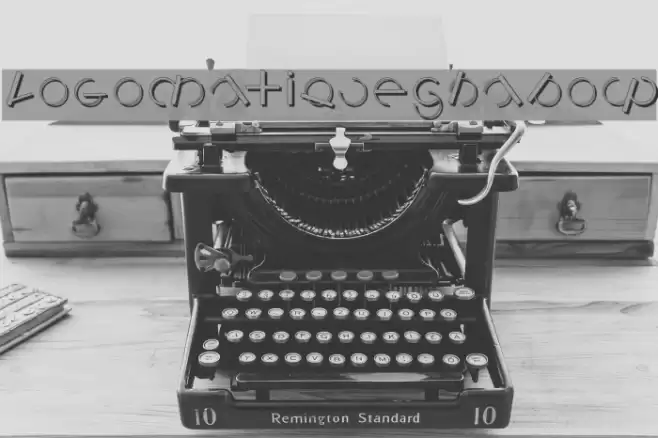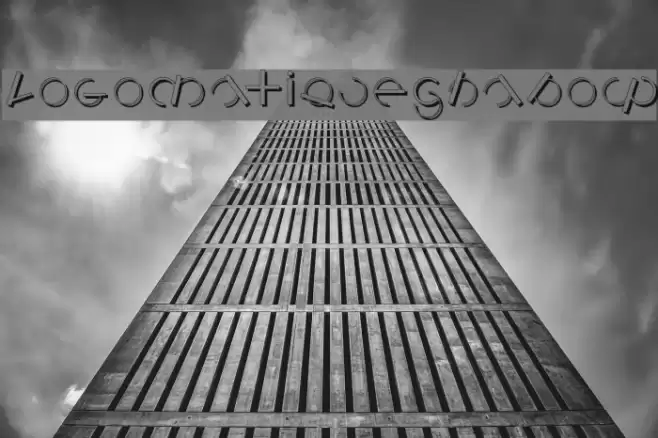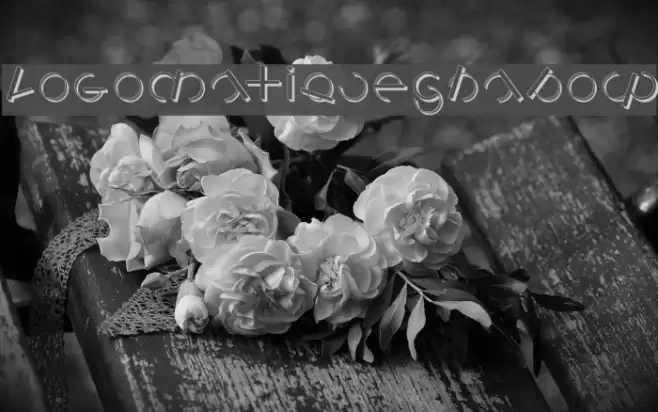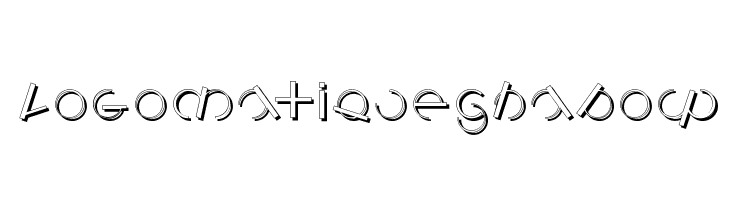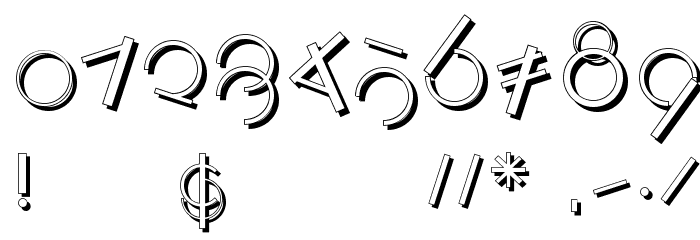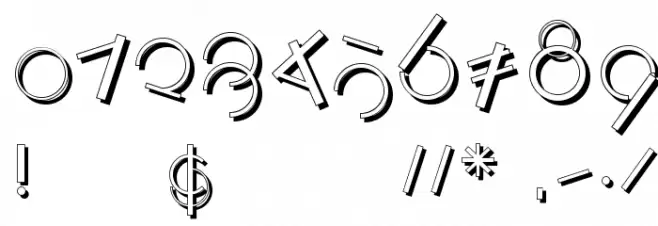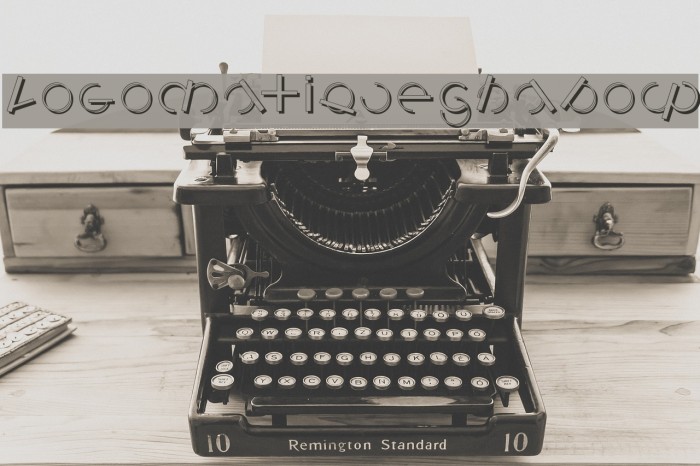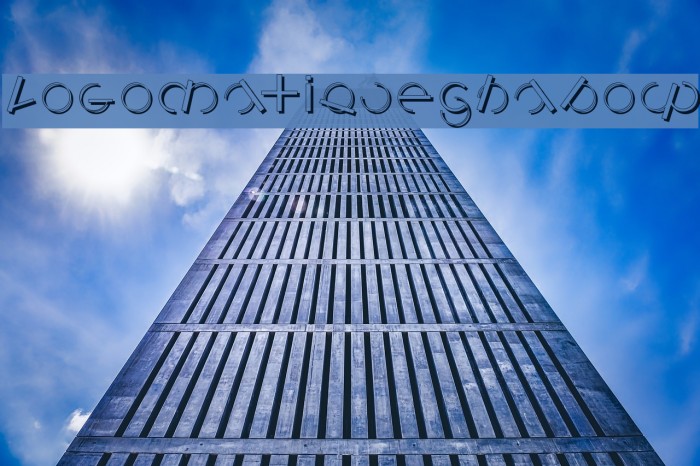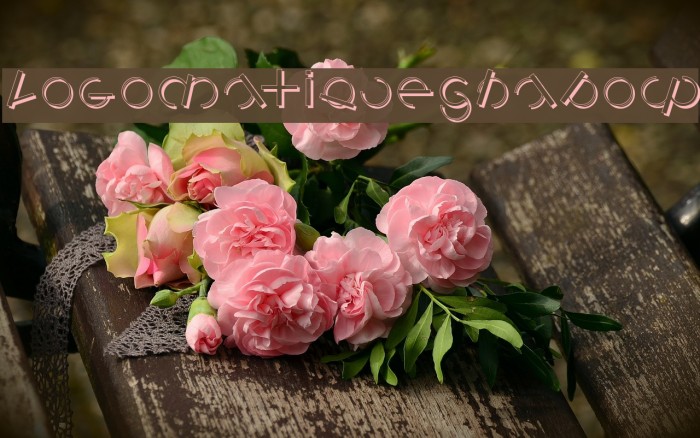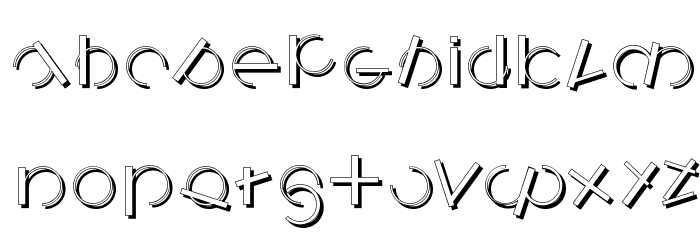
LogomatiqueShadow Font
LogomatiqueShadow Description
This font features a unique and modern design with a shadow effect that gives it a three-dimensional appearance. The characters are composed of bold, geometric shapes with sharp angles and clean lines, creating a futuristic and dynamic look. The shadow adds depth and interest, making the font stand out. Each letter is distinct, with a playful yet sophisticated style that is both eye-catching and versatile. The numbers and special characters follow the same design principles, ensuring consistency throughout. This font is ideal for projects that require a bold statement and a modern aesthetic.
A modern, geometric font with a shadow effect for a 3D look from Uncategorized fonts.
- Proposed Projects: Ideal for logos, branding, posters, and headlines that need a bold and modern touch.